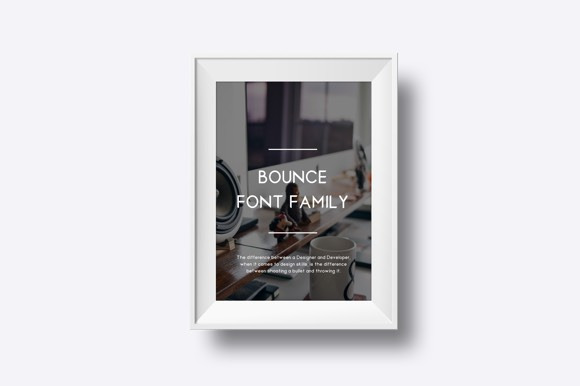
Bounce Font
Bounce is a modern font bought to you by the team at Designer Bundle It contains upper and lowercase characters, numerals and a large range of punctuation symbols. It comes in Bold, Regular and Light versions